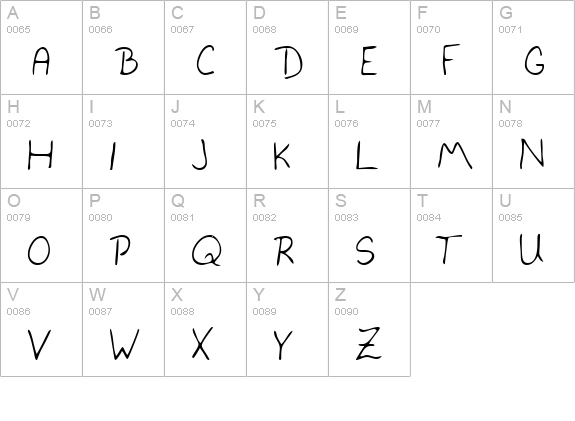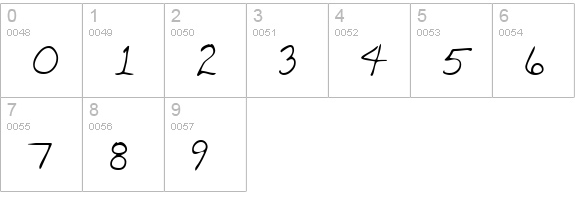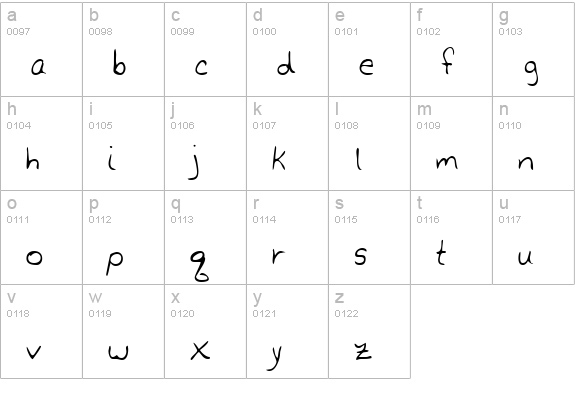
GarysHand Regular Font Details
GarysHand Regular is the standard, neutral variant in the GarysHand typeface family \xE2\x80\x94 well suited to general body text, paragraphs, and standard typographic work.
GarysHand Regular font is a charming and playful typeface that exudes a sense of warmth and friendliness. Its hand-drawn style gives a personal touch to any design project, making it perfect for invitations, greeting cards, posters, and more. The fluid strokes and quirky letterforms add a unique flair to your text, creating a fun and casual vibe. Best of all, GarysHand Regular font is available for free download at FontsMarket.com, making it accessible to anyone looking to add a touch of whimsy to their creations. Whether you're a designer, blogger, or hobbyist, this delightful font is sure to bring a smile to your audience's face. Download GarysHand Regular today and let your creativity shine!